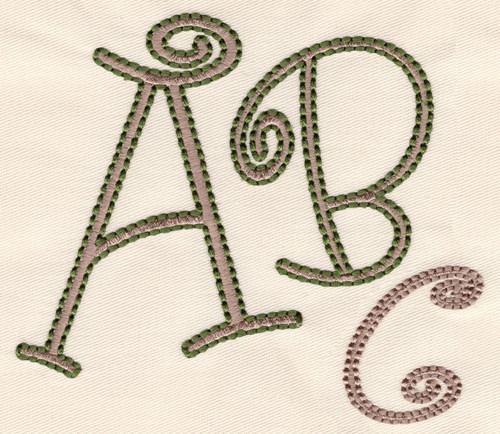
260 Boingo Thin Satin & Floss Font
Boingo Thin Satin & Floss comes in 2", 3" and 4". All sizes included in purchase includes uppercase, lowercase, numbers and punctuations shown. Two Color set up features regular satin stitch centers and Floss stitch outlines that can also be stitched in one color for a monochrome look. Some letters in the 3" and 4" sets exceed hoop limitations of some 4x4 hoops. *DO NOT RE-SIZE designs with Floss Stitch as stitch pattern and stitch quality will be lost.